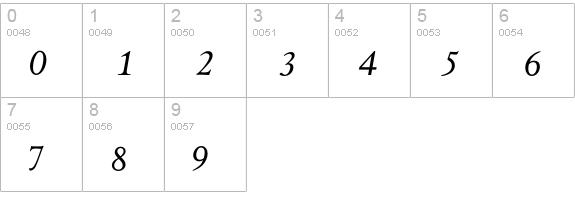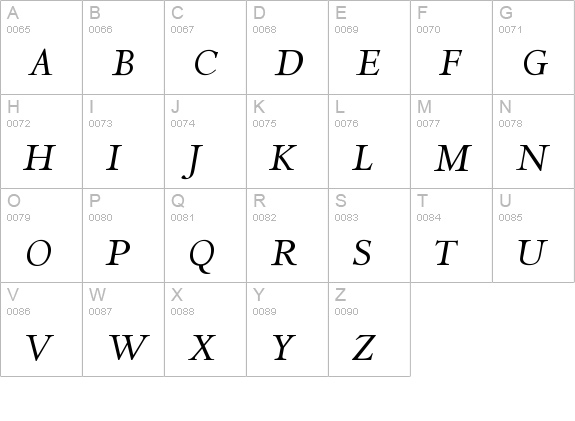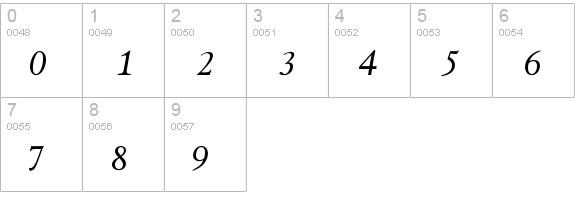
AsdanteItalic Font Details
AsdanteItalic font is a stunning and elegant typeface that exudes sophistication and charm. Its graceful, flowing curves and delicate lines give it a sense of refinement and beauty. Perfect for adding a touch of class to your designs, whether for invitations, branding, or editorial projects. And the best part? AsdanteItalic is completely free to download at FontsMarket.com. That's right, you can enhance your projects with this exquisite font at no cost at all. Don't miss out on this opportunity to elevate your designs with the timeless elegance of AsdanteItalic. Download it now and let your creativity soar.